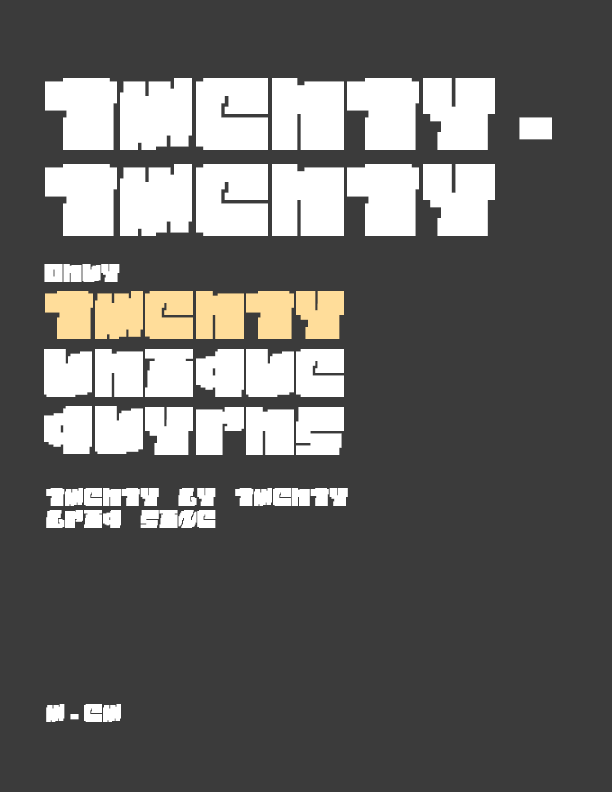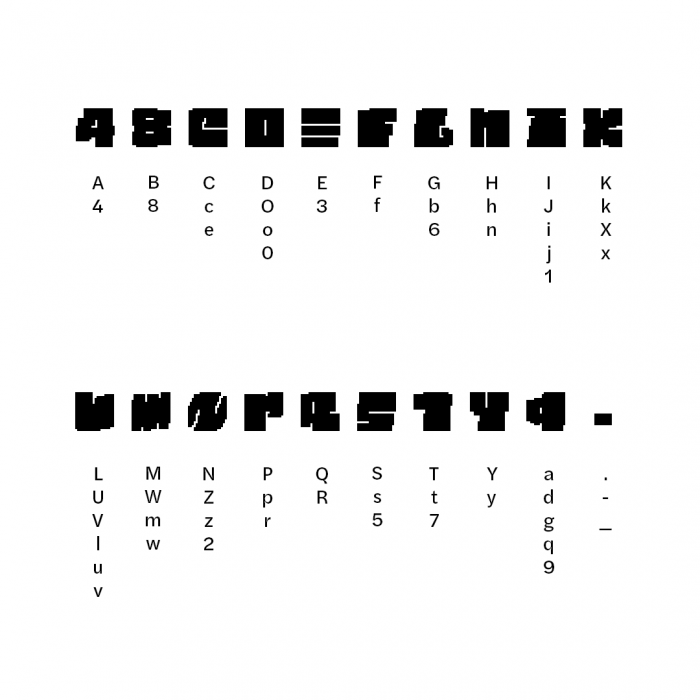
Very curious approach to the theme of this comp.
This is a rather unique idea, love the versatility of the glyphs
Really interesting pixel based font, definitely a unique approach to the twenties challenge. Fascinating how a different context can make you see a glyph as another letter.
Check p and r, they really look different to me...
Great catch four, thank you. I was interested in playing with our ability to see the same glyph as different letters in different contexts.
Congratulations! FontStruct Staff have deemed your FontStruction worthy of special mention. “Twenty-tmchty” is now a Top Pick.
Very unique concept of representing multiple characters by a single glyph. As if that wasn't challenging enough, the heaviness of the style must have made the visualization harder. Awesome.